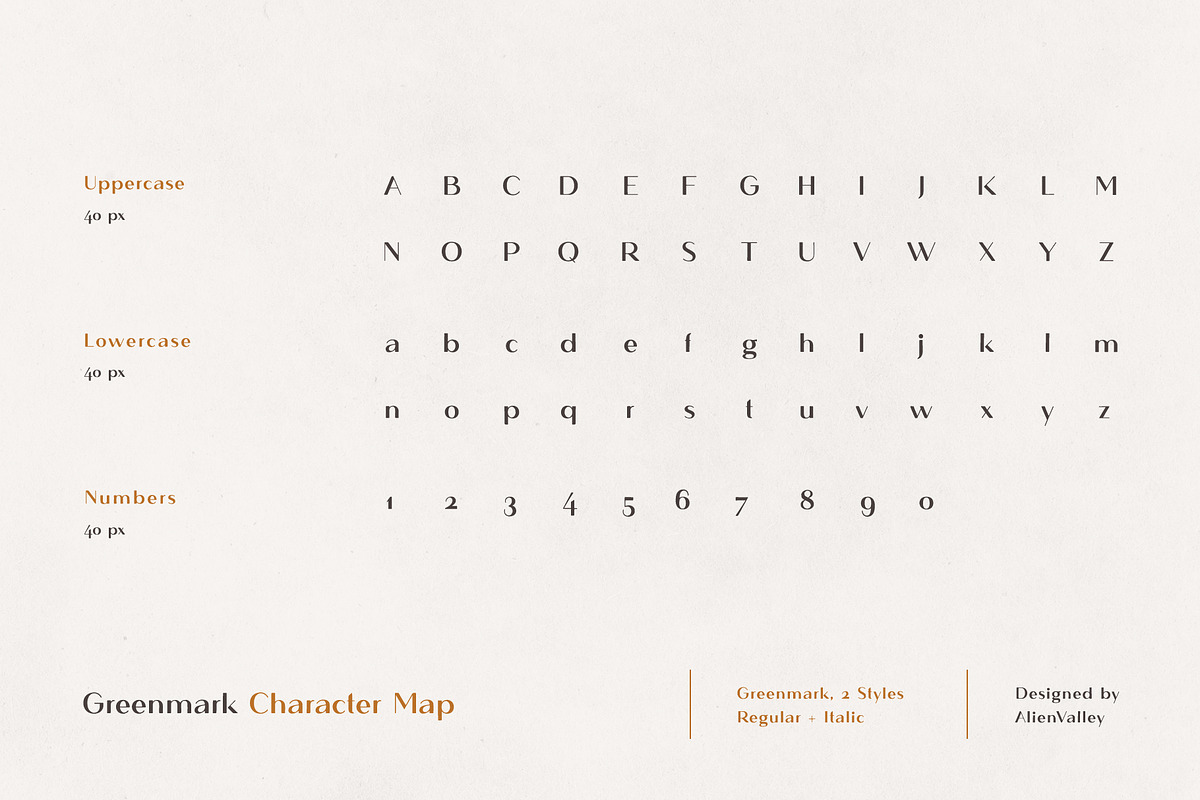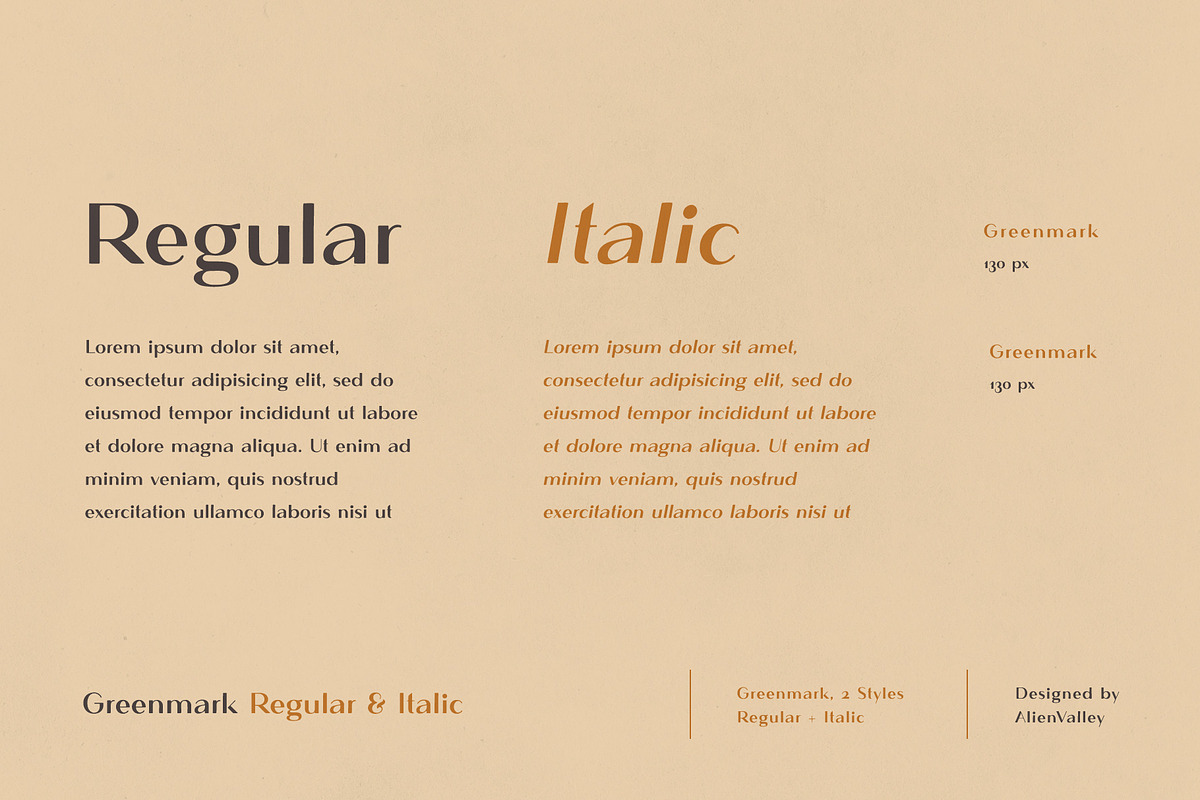
Greenmark Font
Greenmark is a handcrafted sans serif typeface. It features thicker, wider, hand drawn characters, different designs for some letters like a & g and a more uneven baseline for the numbers so they align better with lowercase letters. It works great for both headlines and large amounts of text as you can see in the preview images.
• Uppercase & lowercase
• Hand-drawn characters
• 2 Styles (Regular, Italic)
• Oldstyle figures (uneven baseline for numbers)
• Multilingual Support